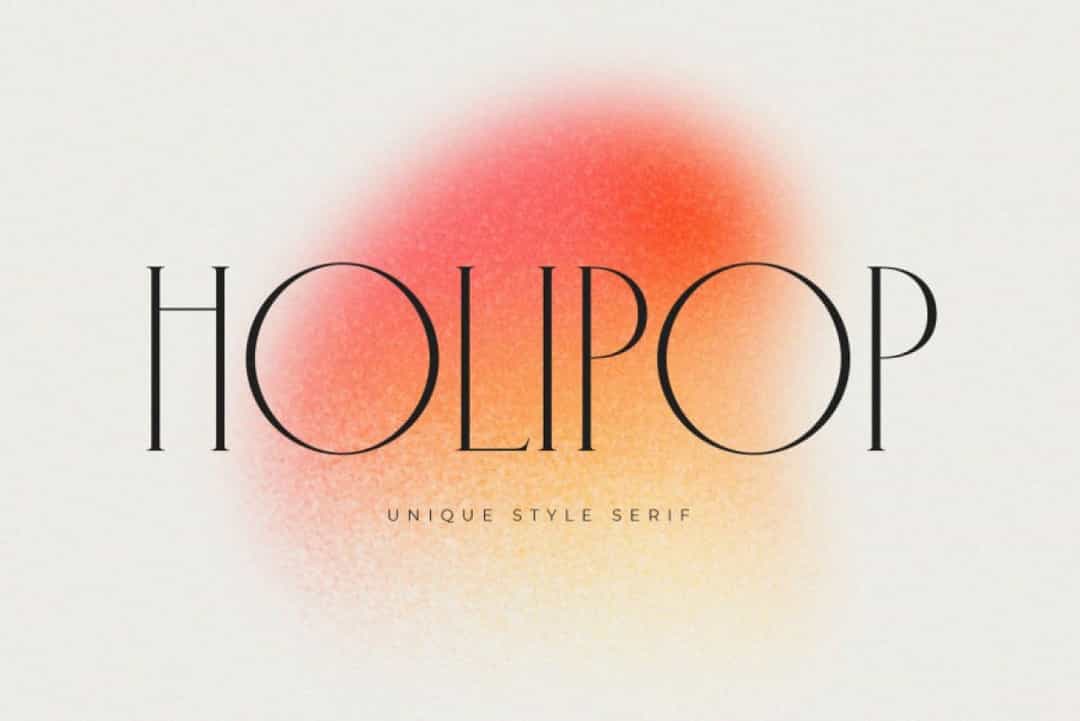
Holipop can be described as a modern and elegant font that works well as display typeface for logos, headings, magazines, branding materials, packaging or invitations. With its sleek curvatures and straight lines it brings sophistication to any project.